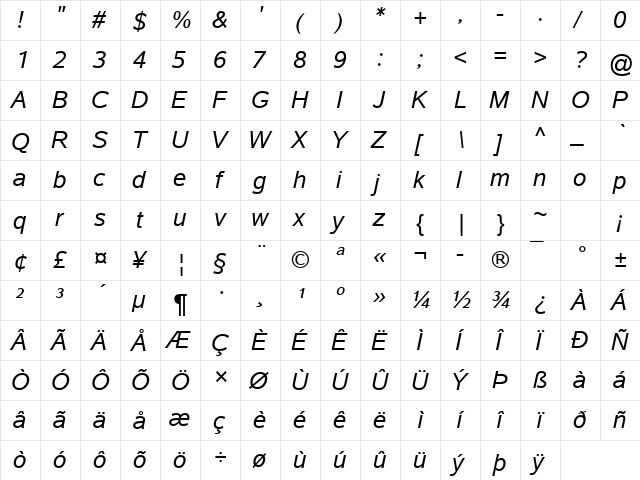
Albany Italic
| Foundry | Agfa Monotype Corporation |
| Designer | Agfa Monotype Drawing Office |
Design Context for Albany Typeface
Albany takes a measured approach to typography — its balanced proportions and neutral character make it a reliable workhorse for both digital and print work. The dynamic lean of this cut emphasises speed and emphasis in any layout.